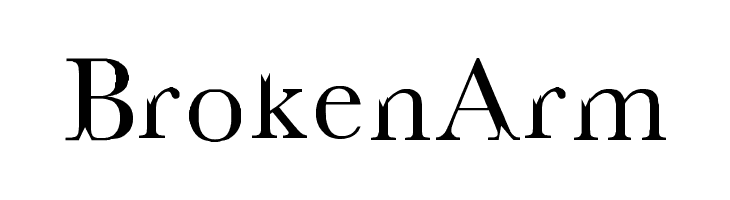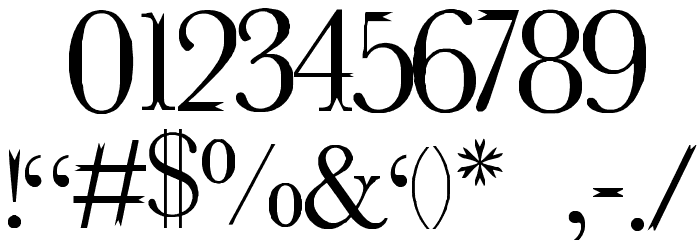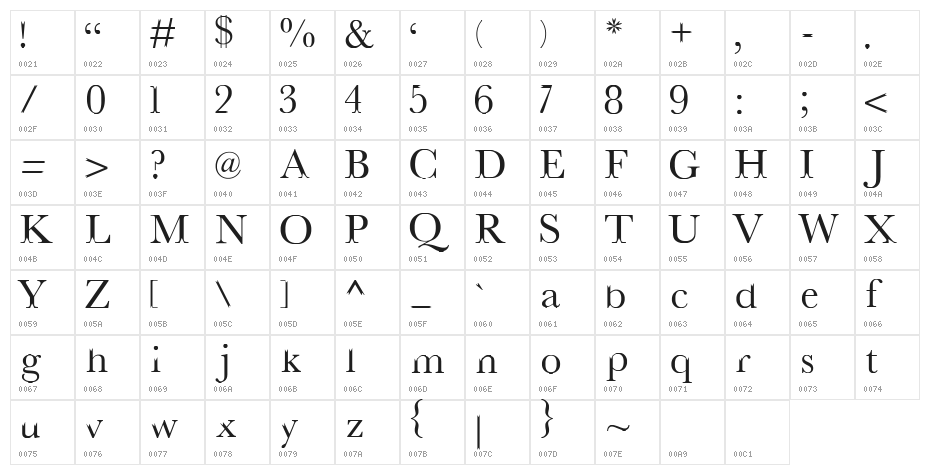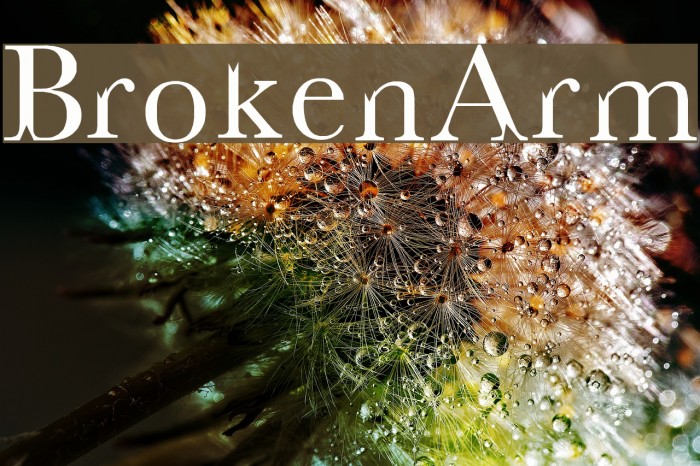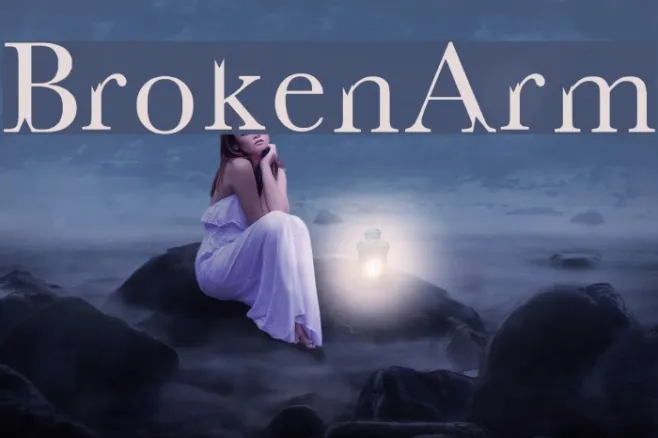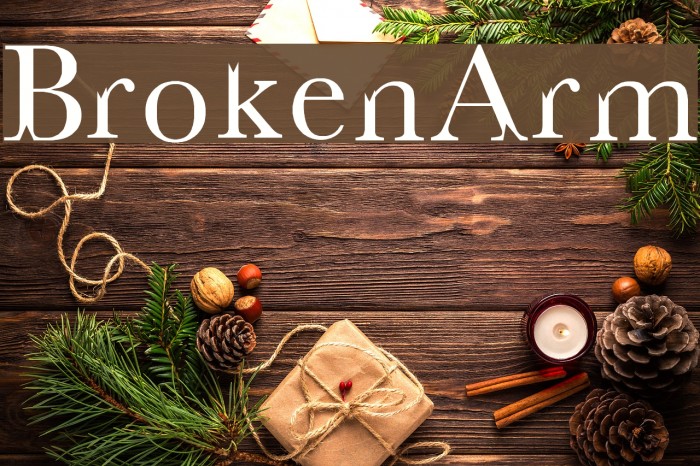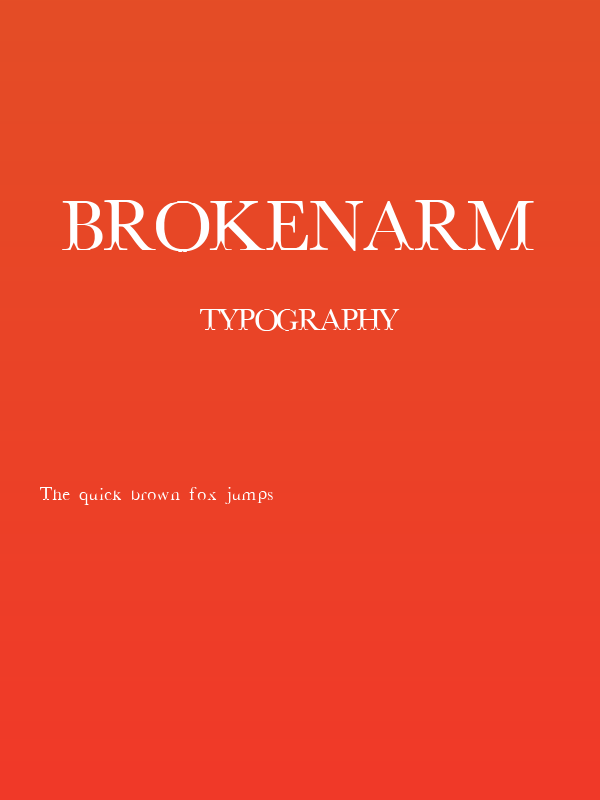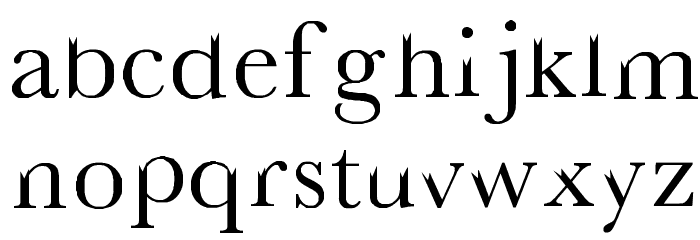
BrokenArm Font
BrokenArm Description
This font exhibits a classic serif style with elegant and slightly exaggerated serifs that give it a sophisticated appearance. The uppercase letters are bold and commanding, while the lowercase letters maintain a balanced and readable form. The numerals are clear and distinct, making them suitable for both formal and casual settings. Special characters are well-designed, ensuring consistency across all glyphs. The overall design is timeless, making it versatile for various applications.
| Proposed Projects | Ideal for book covers, editorial design, formal invitations, and branding materials. |